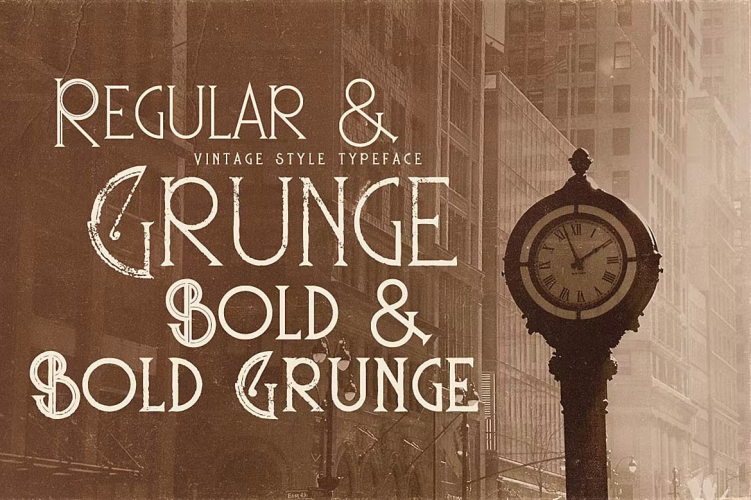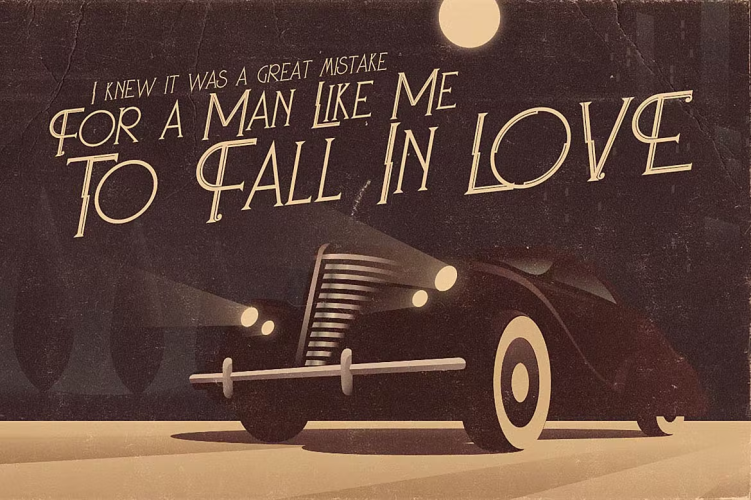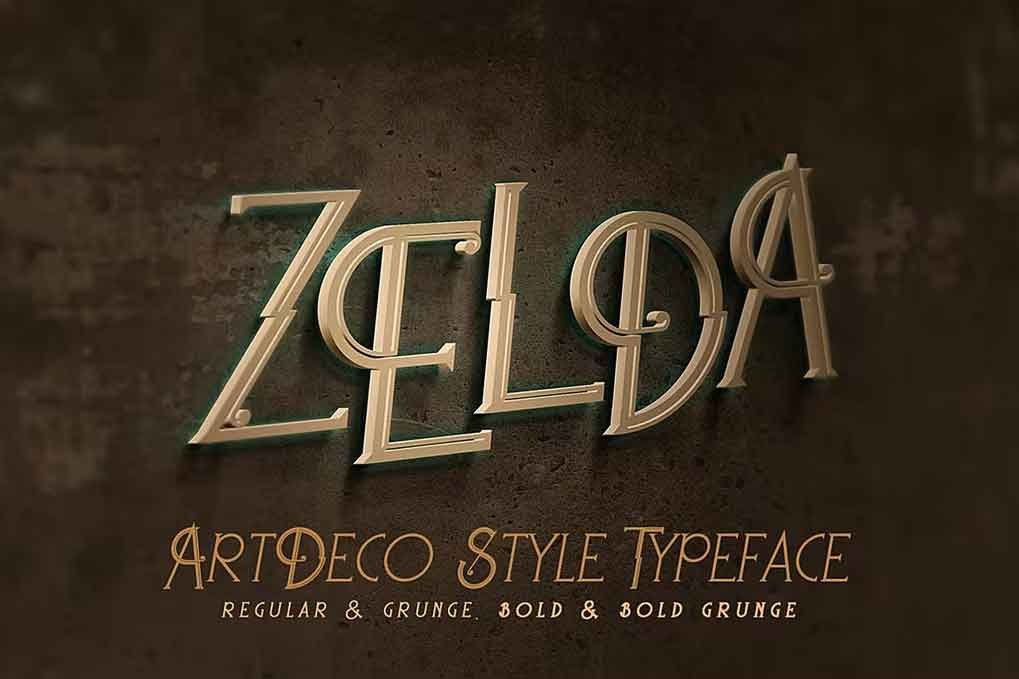
Zelda ArtDeco Font
ArtDeco vintage style display font for your new projects. Great for modern but also for retro/vintage projects!
Zelda ArtDeco Font is a Serif Fonts font that brings a professional and versatile look to your projects. ArtDeco vintage style display font for your new projects.